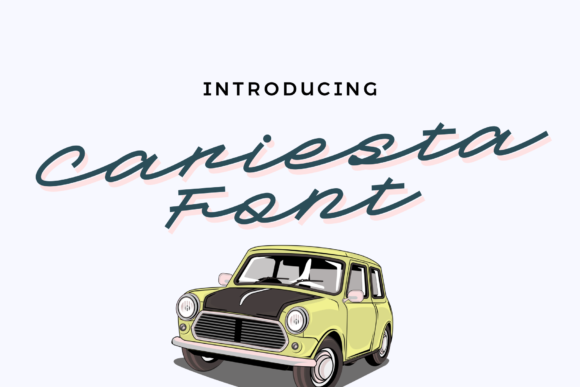
Presenting Cariesta Font, a masterpiece that will transform your creative visions into captivating realities. This exquisite script font exudes elegance and grace, with each stroke flowing seamlessly, like a gentle ripple along a tranquil stream.
Indulge in the beauty of its delicate curves and meticulously balanced characters. This font is an artist's dream, effortlessly complementing a myriad of designs. Let Cariesta become your artistic muse, guiding your imagination to new heights.
Unleash the power of Cariesta Font, where each letter becomes a brushstroke, painting your words with an unmatched charm. Its timeless allure will elevate your creations, giving them a touch of sophistication that will leave a lasting impression.
Embrace the endless possibilities that Cariesta Font holds. Whether you seek to craft heartfelt invitations, design mesmerizing logos, or bring your social media posts to life, this font will weave its magic into every project.
With Cariesta Font, the mundane becomes extraordinary. Let your creativity soar as you watch your words transform into works of art.
So, why wait? Embark on a creative adventure with Cariesta Font today. Let it ignite your imagination and paint your projects with an enchanting glow that will captivate hearts and minds.